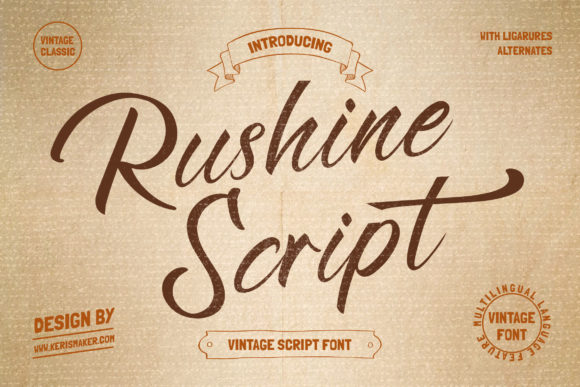
Rushine Script: The Essential Font for Captivating Designs
Unleash your creativity with Rushine Script, the exquisite vintage calligraphy brush stroke font that will transform your designs into masterpieces.
Crafted with meticulous care, Rushine Script seamlessly blends the elegance of classic calligraphy with the raw energy of modern brushwork. Each stroke is a testament to the artistry of its creator, Keristyper, capturing the essence of vintage charm with a contemporary twist.
Immerse yourself in the versatility of Rushine Script, a font that effortlessly adapts to a myriad of design projects. Whether you're crafting a captivating logo for your brand, captivating social media posts that demand attention, or cinematic movie titles that ignite imagination, Rushine Script has the power to elevate your creations.
Indulge in the beauty of flowing characters and intricate details that make Rushine Script perfect for book covers and enticing short texts. Its enchanting allure extends to longer texts, where its graceful strokes dance across the page, adding a touch of sophistication to your written words.
As a secondary font, Rushine Script harmoniously complements sans serif and serif fonts, creating a striking contrast that commands attention. Its versatility extends to a wide range of design styles, from vintage and retro to modern and contemporary, ensuring that your creations stand out from the crowd.